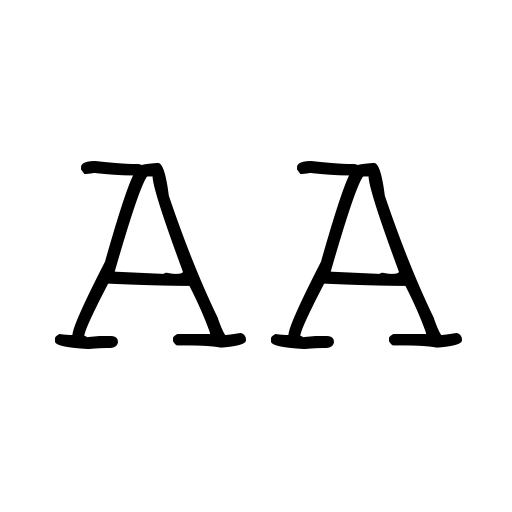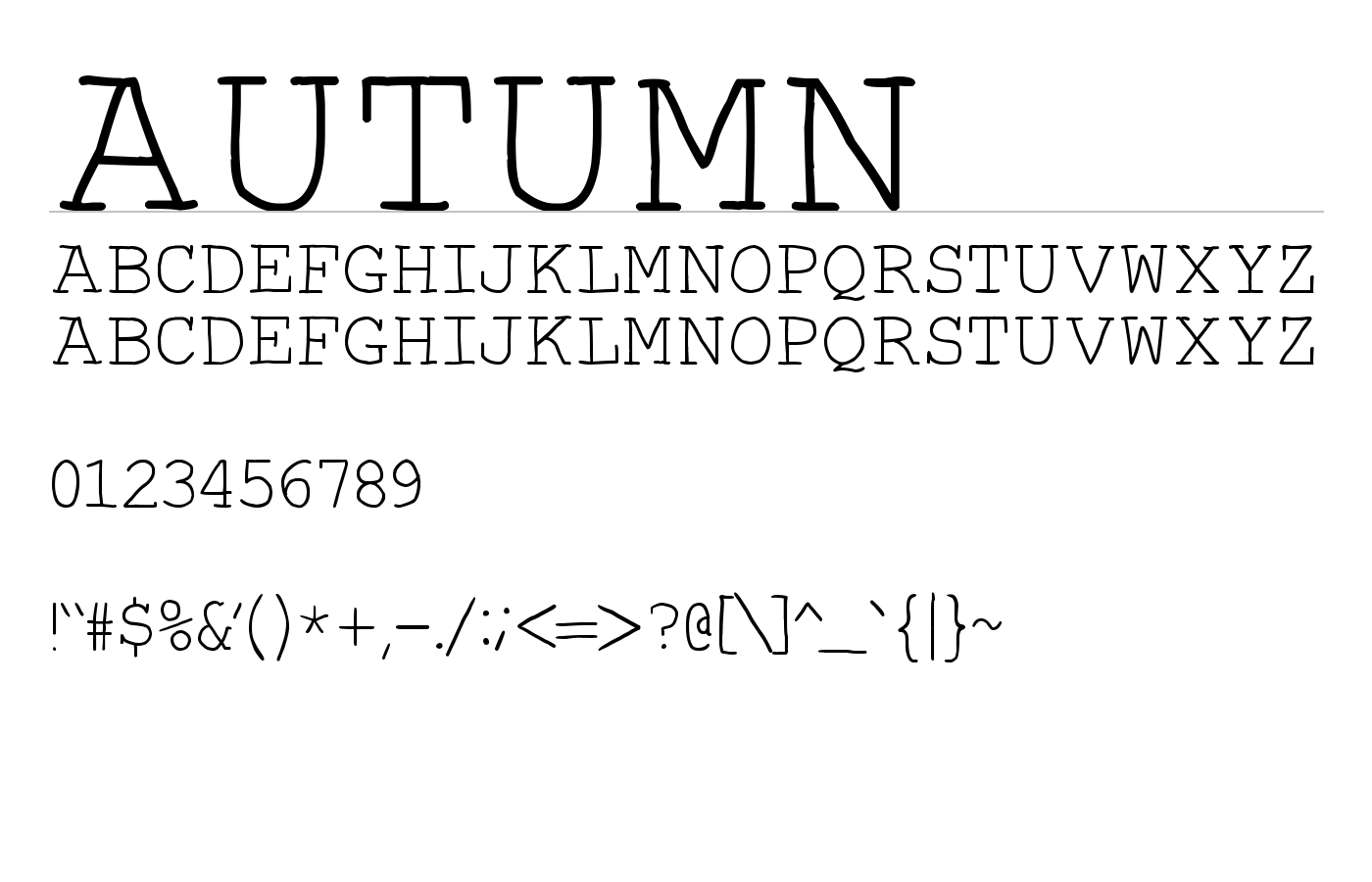
Autumn Font is a unique serif typeface with a hand-drawn, slightly whimsical feel, characterized by its thin, irregular strokes and tall, narrow letterforms. It blends a vintage typewriter style with gentle imperfections, making it ideal for creative projects that want a personal, artisanal touch while still maintaining readability. This font works well for branding, editorial design, and any context where a charming yet classic look is desired.
Autumn Font
About Autumn Font
| Font family | Autumn Font |
| Designer | Denise Bentulan |